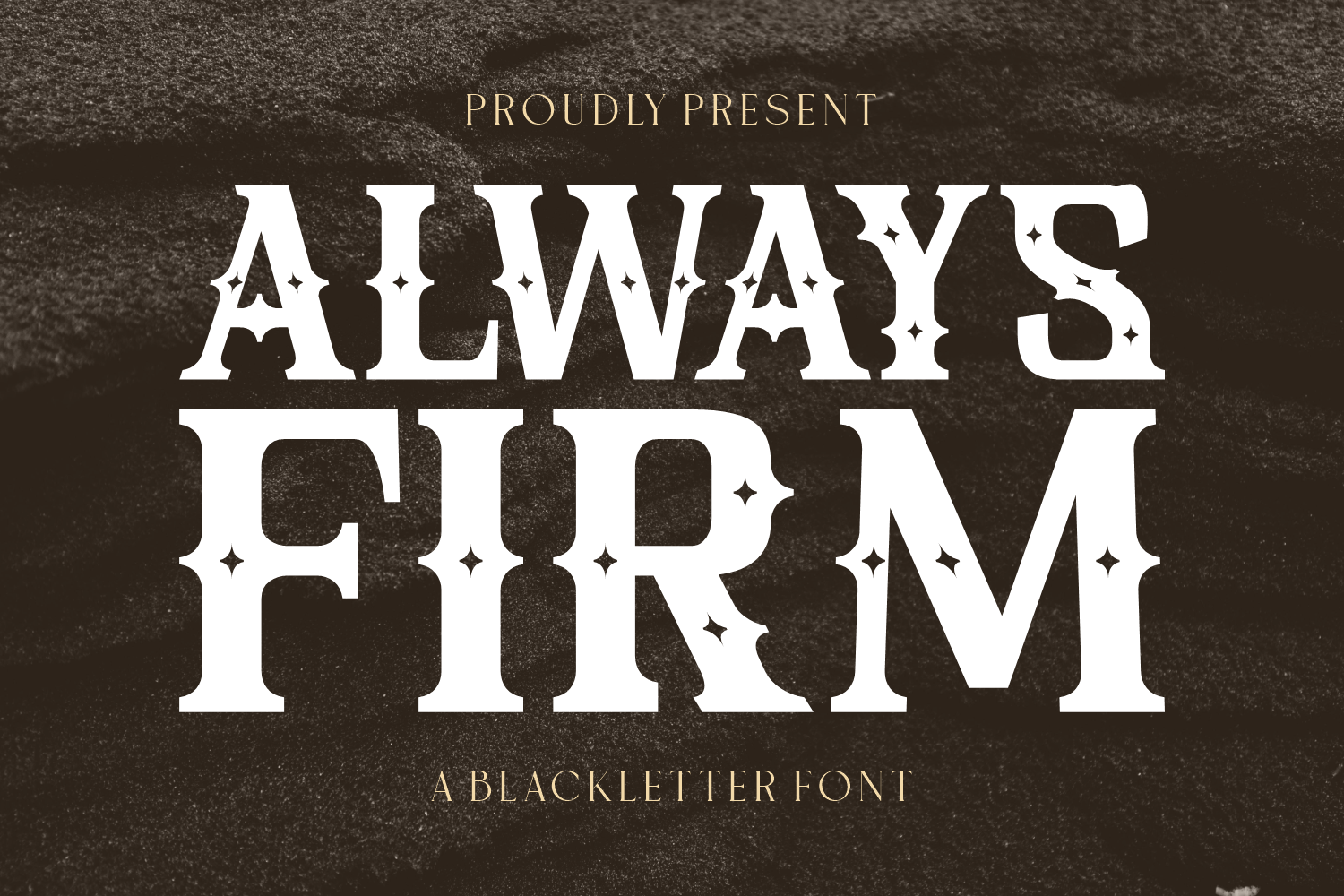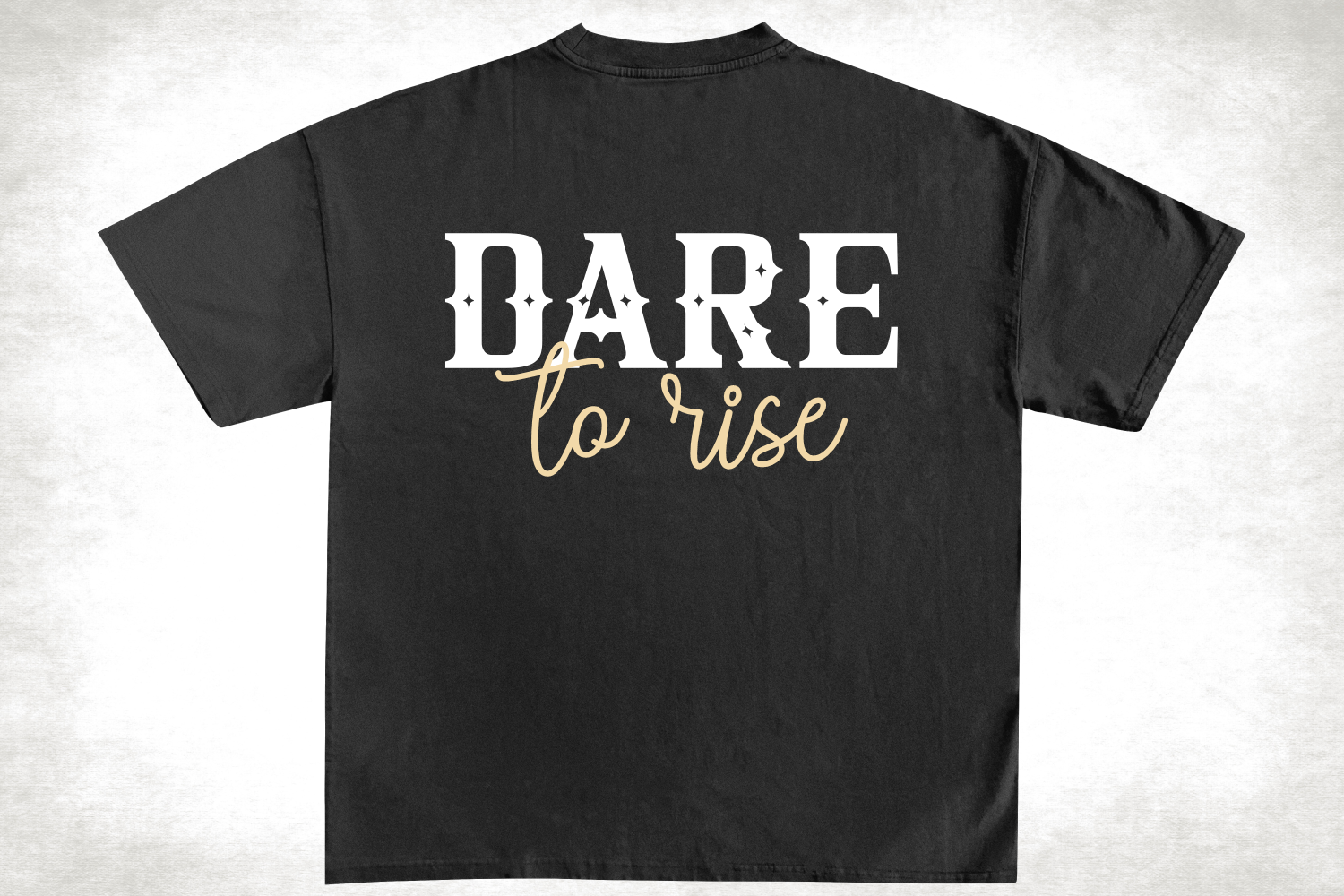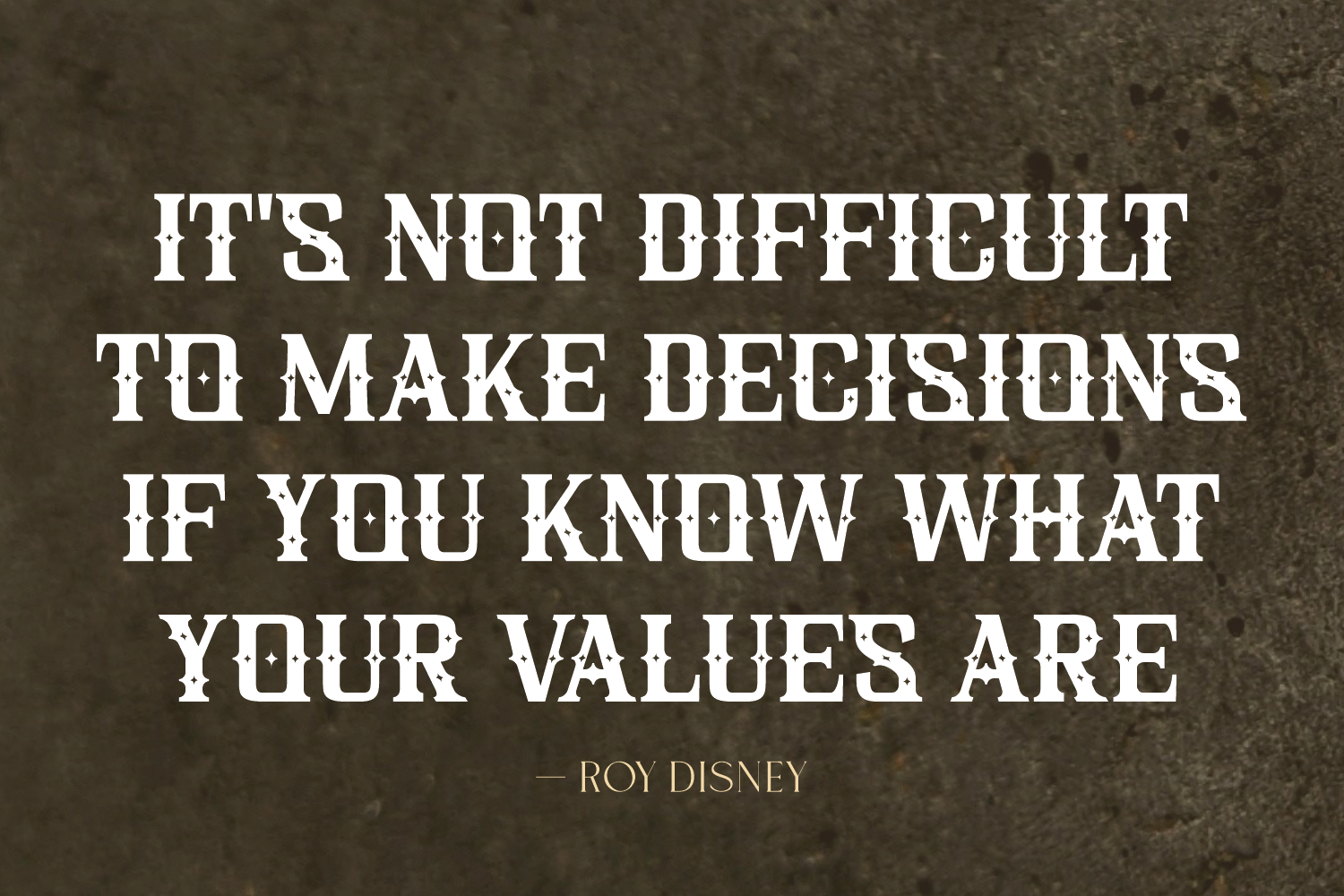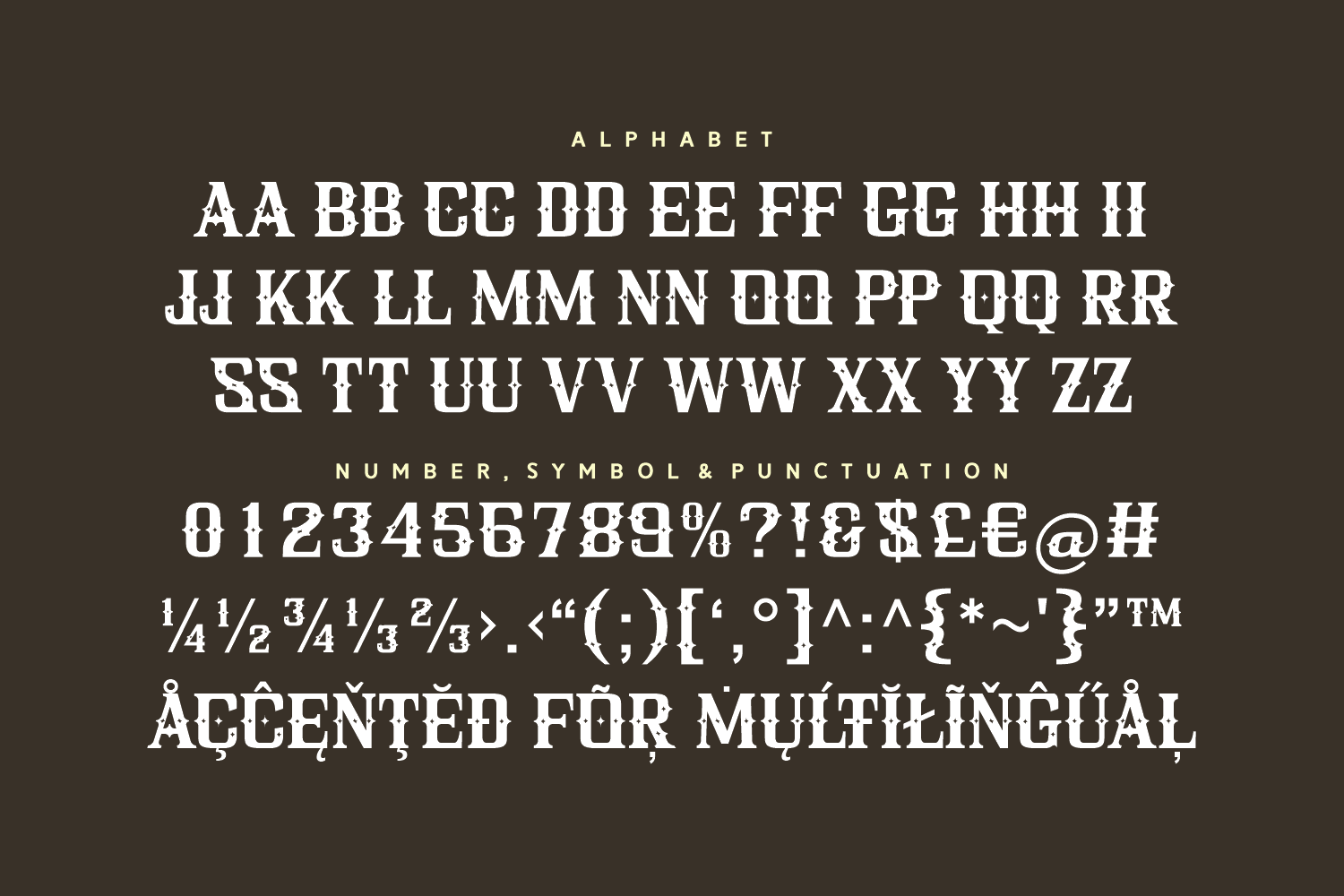
Always Firm is a bold and striking blackletter font infused with a unique star-cut detail that adds a vintage western flair. Its sharp serifs and decorative spark accents make it perfect for statement designs, branding, posters, or packaging that needs to exude confidence and character. Whether you're designing for a rustic brand or aiming for a classic-meets-modern aesthetic, Always Firm holds its ground with unmistakable strength and style.